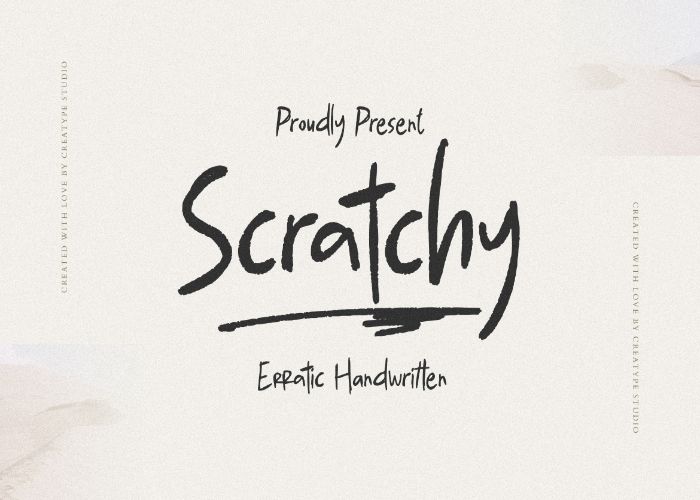
Free Erratic Scratchy Handwritten Font
Free Scratchy Erratic Handwritten Font
Bring a raw, hand-drawn vibe to your projects with the Scratchy Erratic Handwritten Typeface from DealFuel. This scratchy, messy-style font includes plenty of alternates, ligatures, and swashes to give your work a distinctive, organic look.
• Messy, erratic handwritten shapes
• Multiple alternates, ligatures, and swashes
• Branding and logos
• Social media graphics
• Advertisements and product packaging
• Product design and labels
• Photography overlays
• Invitations and stationery
• Any project that benefits from a handwritten aesthetic
• Large set of glyphs, plus ligatures and alternate characters
• Handwritten display font